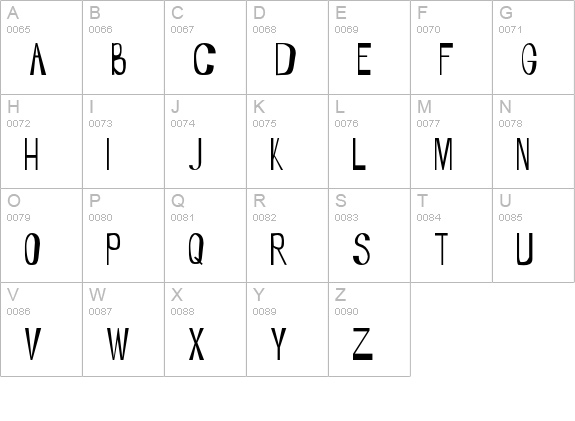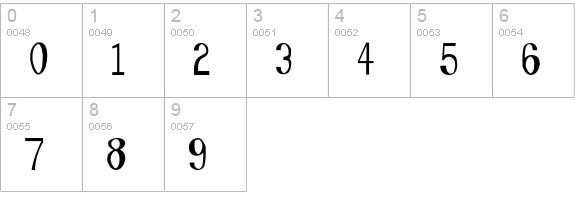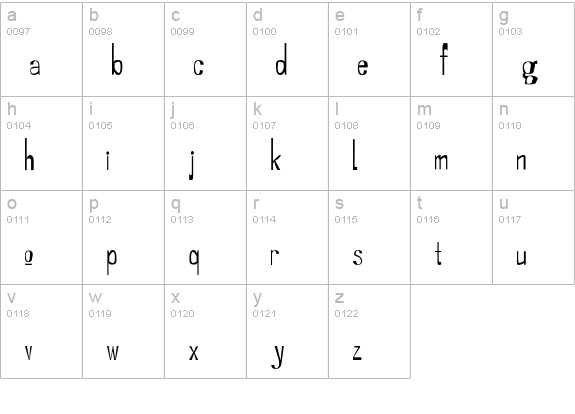
Cowpoke Font Details
Cowpoke font is a charming and rustic typeface that captures the essence of the wild west with its rugged and hand-drawn appearance. This font exudes a sense of adventure and nostalgia, making it perfect for projects that require a touch of old-world charm. With its unique character and playful design, Cowpoke font is sure to stand out and make a statement. The best part? Cowpoke font is available for free download at FontsMarket.com, allowing you to easily access this one-of-a-kind typeface for all your creative needs. Whether you're working on a western-themed project, designing a vintage poster, or simply looking to add a touch of personality to your designs, Cowpoke font is the perfect choice. Download it today and let your creativity run wild with this delightful and versatile font.